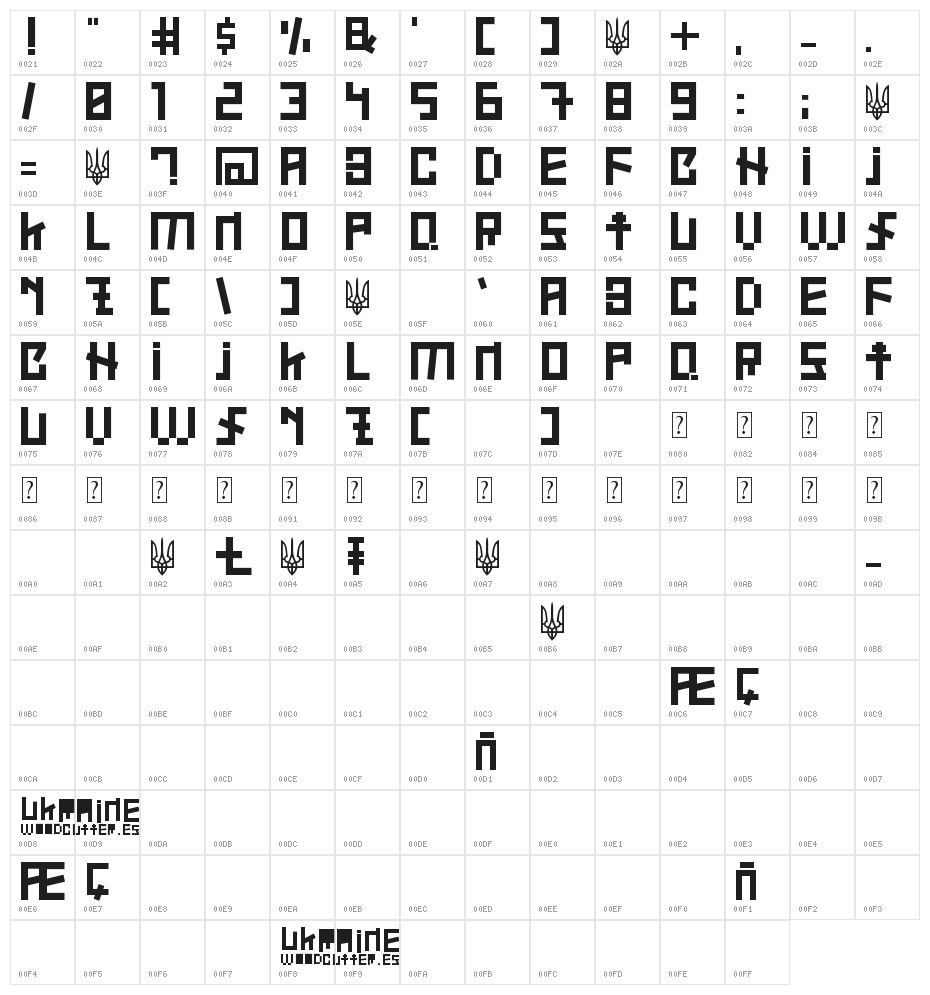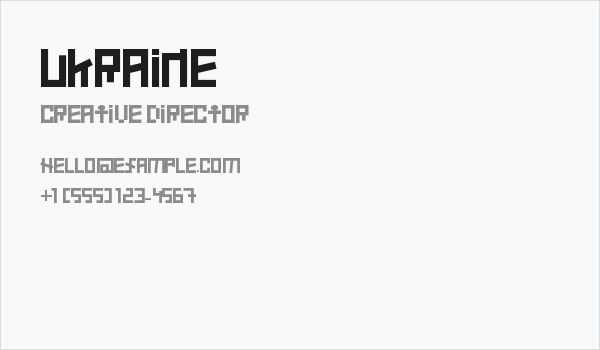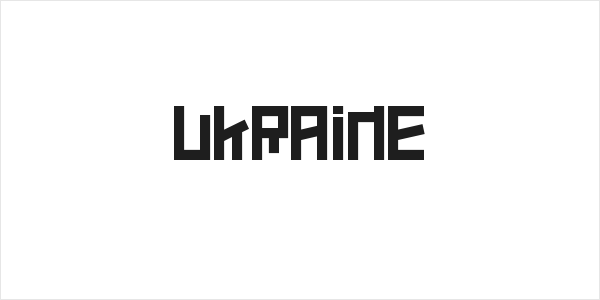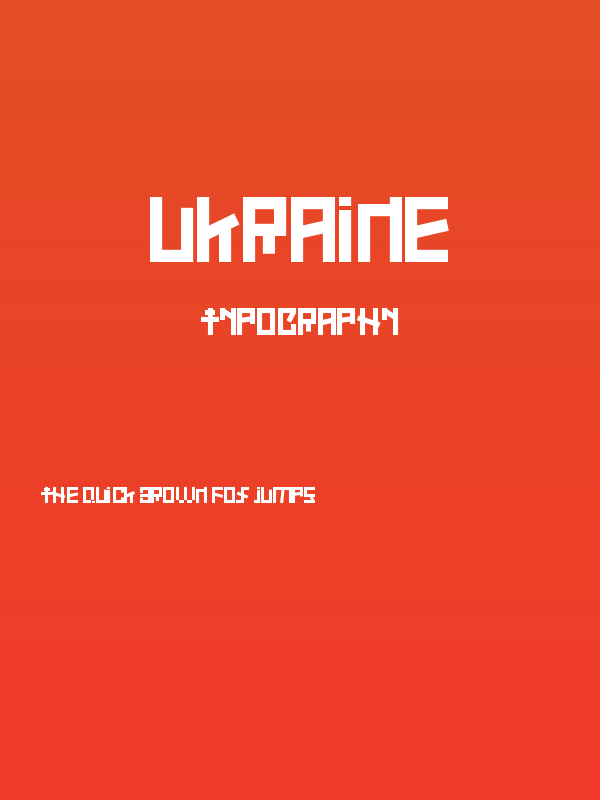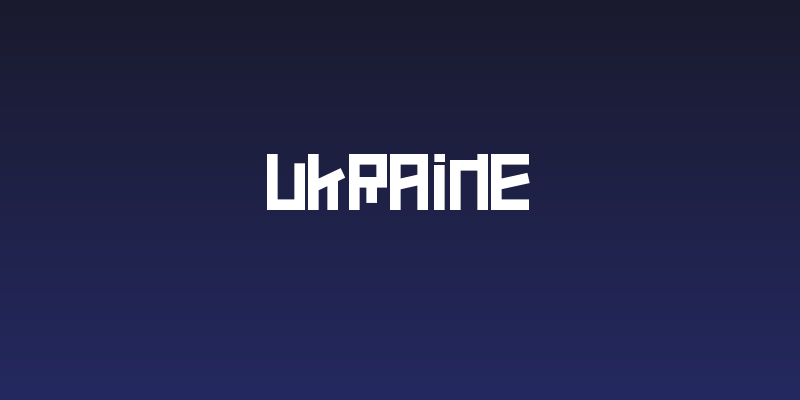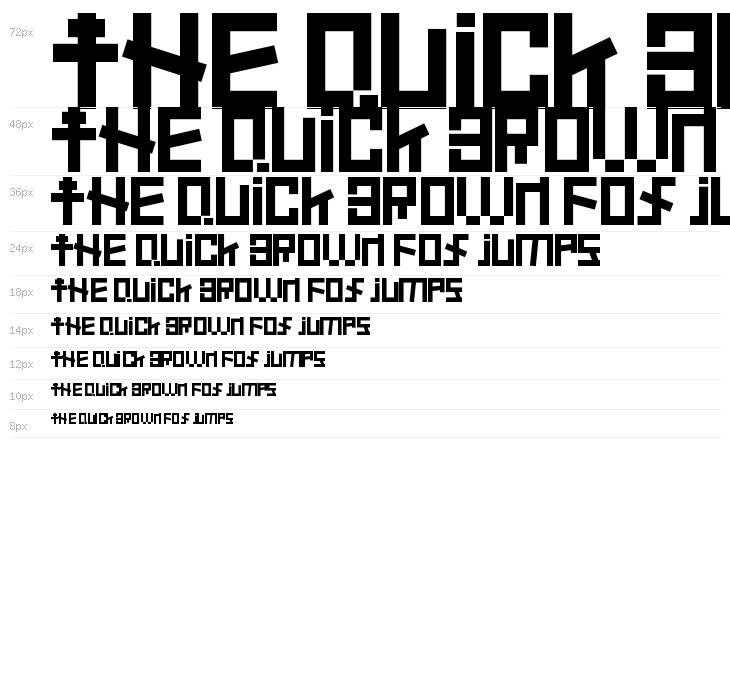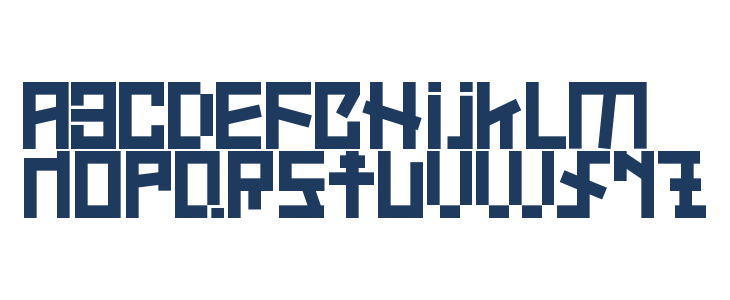
Ukraine Font
Ukraine Description
This font features a bold, geometric design with a distinctly modern and edgy appearance. The characters are constructed with thick, angular lines, creating a sense of strength and stability. The uppercase and lowercase letters maintain a consistent style, with sharp edges and a blocky structure. The numerals and special characters follow the same design principles, ensuring uniformity across all glyphs. This font's unique style is both eye-catching and assertive, making it suitable for impactful visual statements.